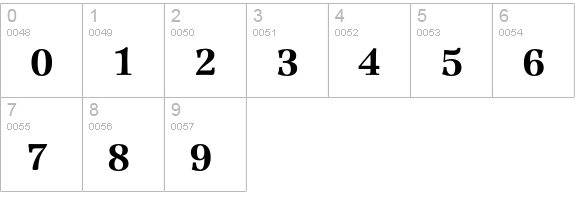
JamilleEF-Black Font Details
JamilleEF-Black is a maximum-weight, dramatic variant in the JamilleEF typeface family \xE2\x80\x94 well suited to maximum-impact headlines, posters, and packaging.
Introducing JamilleEF-Black, a stunning and sophisticated font that exudes elegance and professionalism. This font is perfect for those seeking a bold and impactful typeface to make a statement in their designs. With its strong and confident letterforms, JamilleEF-Black commands attention and adds a touch of sophistication to any project it is used in. Whether it's for a sleek and modern logo, a stylish magazine layout, or a captivating headline, this font is sure to leave a lasting impression. What makes JamilleEF-Black even more desirable is that it is absolutely free to download at FontsMarket.com. Yes, you read that right – this exceptional font is freely available for anyone to enhance their creative endeavors. So why wait? Take advantage of this amazing opportunity and elevate your designs with the timeless beauty of JamilleEF-Black. Crafted with meticulous attention to detail, this font offers a seamless blend of boldness and elegance. Each letter is meticulously designed to ensure legibility while maintaining a sense of style and uniqueness. The balanced proportions and refined curves of JamilleEF-Black create a harmonious visual experience that is both captivating and versatile. Whether it's used for print or digital applications, JamilleEF-Black will effortlessly adapt to any design concept. Its versatility allows it to shine in a variety of contexts, from branding and packaging to editorial layouts and web design. So, if you're looking for a font that combines aesthetics with accessibility, JamilleEF-Black is the perfect choice. Download it for free at FontsMarket.com and unlock endless possibilities to elevate your creative projects. Embrace the power of this remarkable font and let it become the centerpiece of your designs.